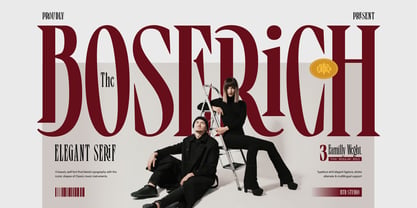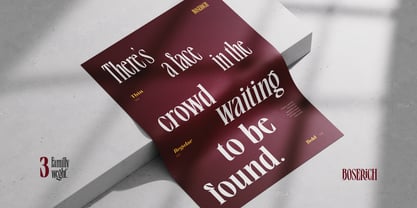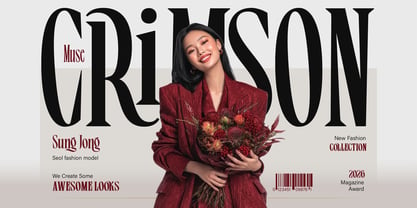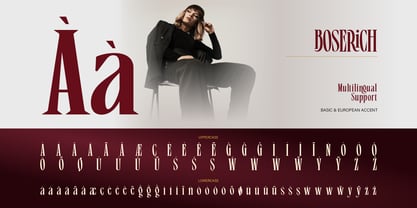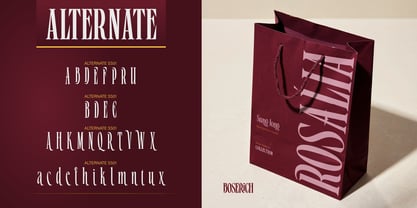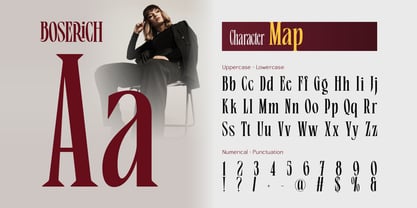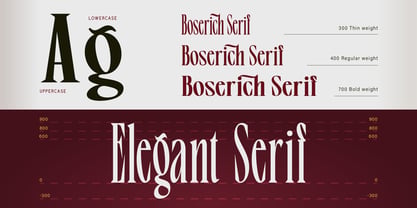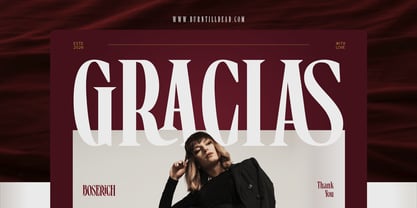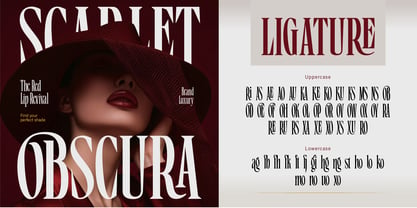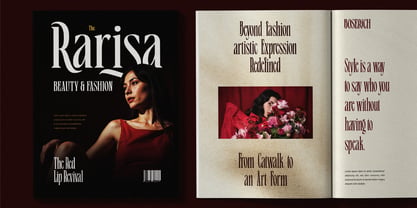
Boserich
The Boserich Font Family was designed by Eric Kurniawan and published by Burntilldead. Boserich contains 3 styles and family package options. More about this family
Boserich is a modern elegant serif typeface designed to bring a luxurious and high-fashion feel into your creative projects. Inspired by editorial magazines, luxury branding, and contemporary fashion aesthetics, this font blends classic serif structure with stylish modern details.
With its high contrast strokes, refined curves, and distinctive ligatures, Boserich creates a strong visual presence while still maintaining readability. The unique character shapes especially in letters like A, g, and R add a sophisticated personality that stands out effortlessly.
This font comes in multiple weights (Thin, Regular, and Bold), giving you the flexibility to create everything from delicate headlines to bold statement typography.
Features: A - Z set (Uppercase & Lowercase), Number, Punctuation, Alternates, Ligatures, Multilingual